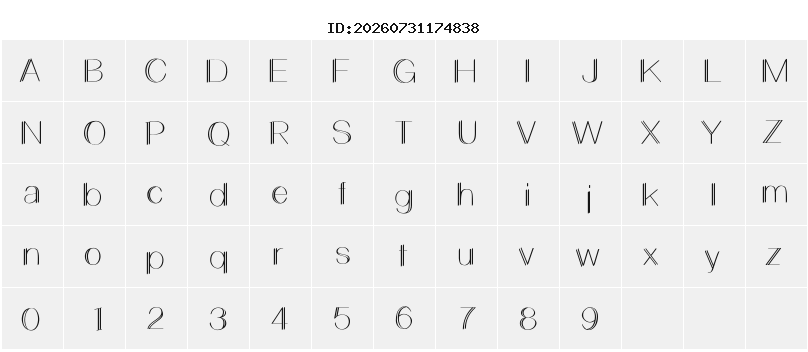
LemonCookieSans Preview
• Font Name: LemonCookieSans
• Full Font Name: LemonCookieSans
About LemonCookieSans.ttf
LemonCookieSans.ttf is a modern, elegant sans-serif font designed for ultimate readability and visual harmony. Perfect for branding, headlines, web design, and print materials.